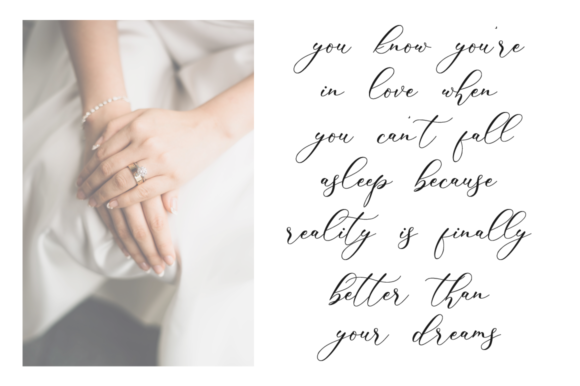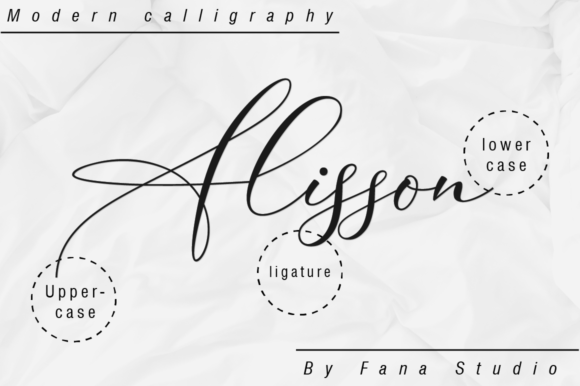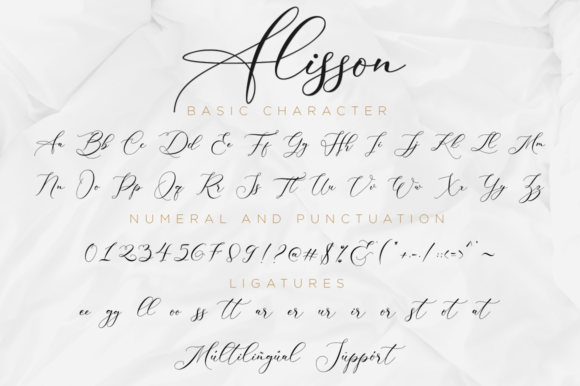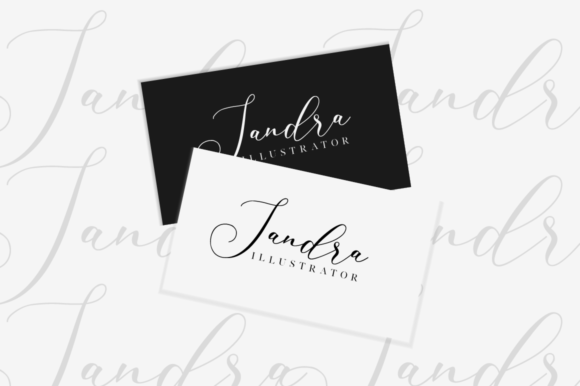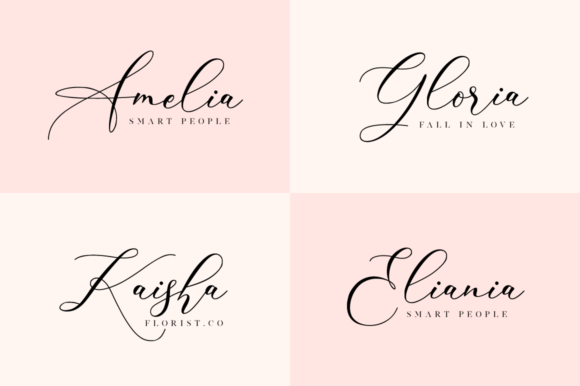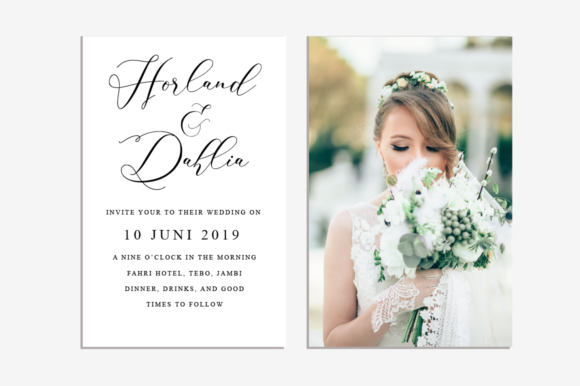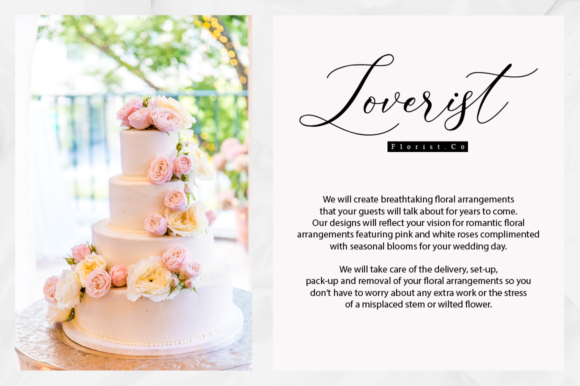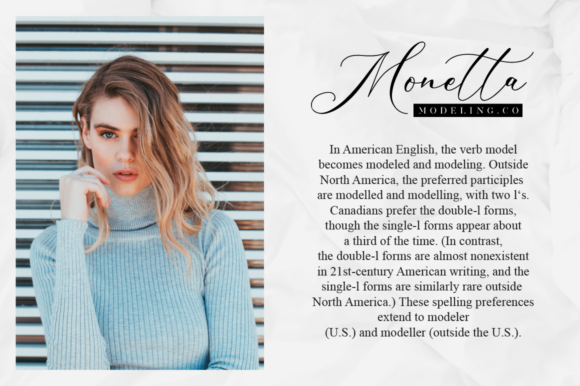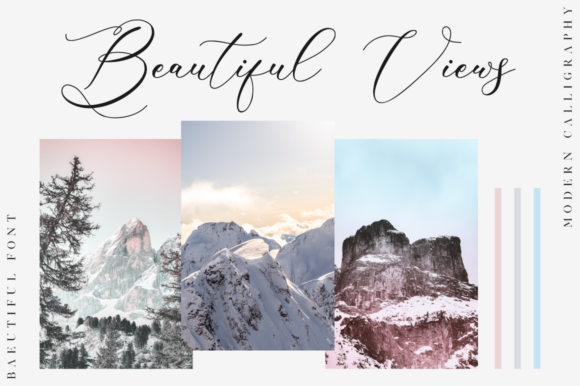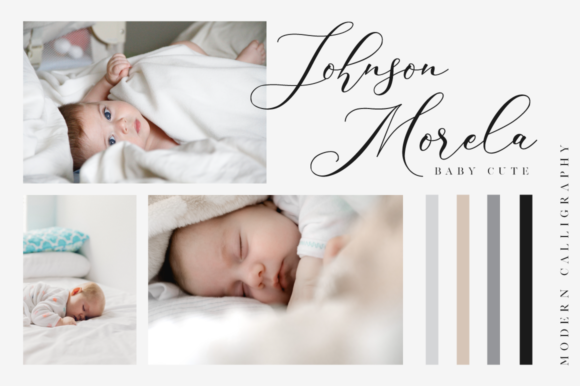
HomeScript FontsAlisson Script Font Script Fonts Alisson Script Font FacebookXPinterestWhatsApp Alisson Script Font Poster 2 Alisson Script Font Poster 3 Alisson Script Font Poster 4 Alisson Script Font Poster 5 Alisson Script Font Poster 6 Alisson Script Font Poster 7 Alisson Script Font Poster 8 Alisson Script Font Poster 9 Alisson Script Font Poster 10 Alisson Script Font Poster 11 Alisson Script Font Poster 12 About Alisson Script Font Alisson is a stylish and romantic script font with a romantic feel. Fall in love with its effortless elegance! DOWNLOAD ON CREATIVE FABRICAThis font is sold and delivered by Creative Fabrica. Font Canyon may earn a commission if you buy through this link. People also explored ElleXit Pro Font Fibon Authentic Font Elsa Sayonara Font Pollard Script Font Hilbern Font Fioretta Font The Crosses We Bear Font Dreamotions Font 417 0 TagsAlisson Script Font Previous articleSelfilla FontNext articleAdorable Wishes Font LEAVE A REPLY Cancel reply Comment: Please enter your comment! Name:* Please enter your name here Email:* You have entered an incorrect email address! Please enter your email address here Website: Save my name, email, and website in this browser for the next time I comment. Personal Use Free Rhetorical Personal Use Free Read more about this font Krabuler Personal Use Free Read more about this font Super Caramel Font Personal Use Free Read more about this font The Kingdom Personal Use Free Read more about this font BLOG Transform Your Website: Elevate Your Typography with 7 Best Web Font Generators Are you ready to transform your website's typography from ordinary to extraordinary? Great! Today, we're diving into the world of web font generators, which... Exploring Font Trends 5 Fonts That Will Dominate Design Trends in 2026 Modern Sans-Serif Fonts That Brands Love in 2025